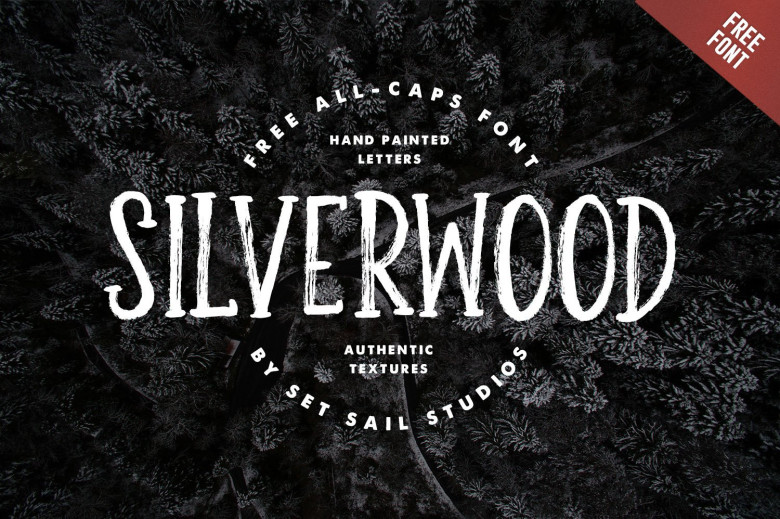
Silverwood Typeface
Hi friends. Introducing Silverwood Typeface! Silverwood Font designed and shared by Set Sail Studios. Our multi purpose all-caps brush font. With uneven letters and a rough texture, Silverwood is bold and strong but with a friendly charm. Silverwood comes with uppercase letters, numerals, a large range of punctuation and multilingual support. The best part is, it’s completely free for you to download and enjoy, so what are you waiting for!